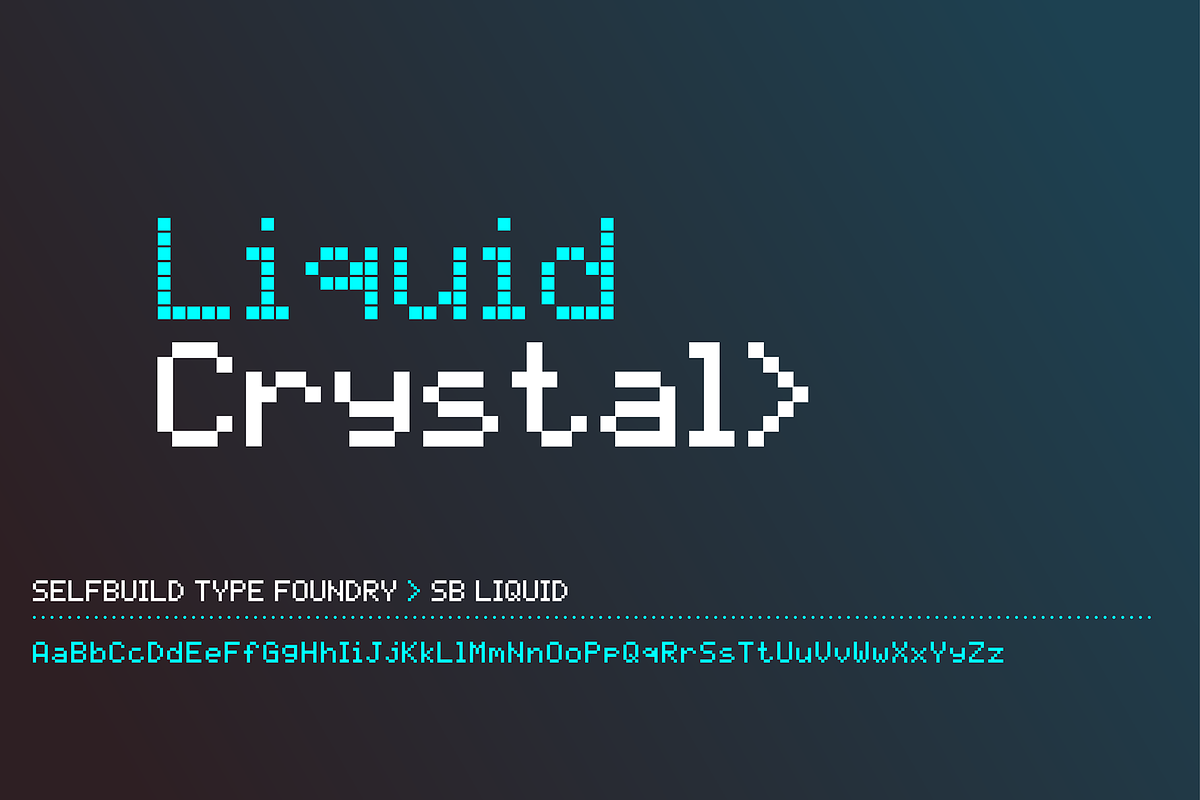
Liquid LCD Font Free Download is a sleek and digital-inspired pixel typeface that blends retro tech aesthetics with modern design. With its sharp grid lines and futuristic character, this font is perfect for game UI, tech product branding, sci-fi posters, retro console-inspired graphics, and cyber-themed content.
It mimics the classic look of old LCD screens, yet adds a smooth, liquid-like visual twist — ideal for designers who want to create a unique blend of nostalgia and innovation. Liquid LCD Font Free Download gives you the opportunity to test this stylized pixel font in personal projects before securing a commercial license.
Step into the digital realm with Liquid LCD — the pixel font that brings vintage displays into the future.